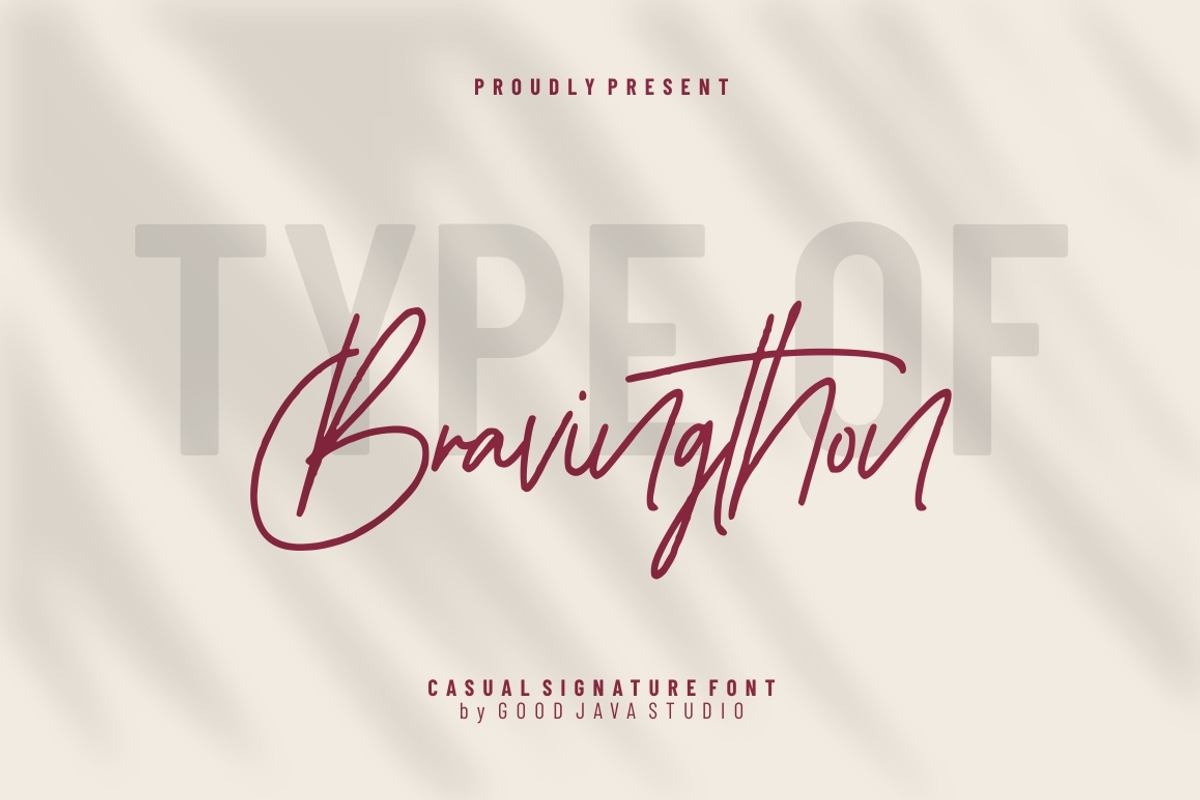
Bravingthon - Casual Signature Font Free Download
Bring a personal, handwritten touch to your designs with Bravingthon - Casual Signature Font Free Download. This elegant yet casual script font mimics a stylish signature, making it perfect for branding, logos, invitations, social media posts, and personalized stationery.
Bravingthon features smooth, flowing strokes and natural ligatures that give your designs an authentic, hand-lettered feel. It includes uppercase and lowercase characters, numerals, punctuation, and a variety of stylistic alternates—perfect for testing personal and sophisticated layouts.